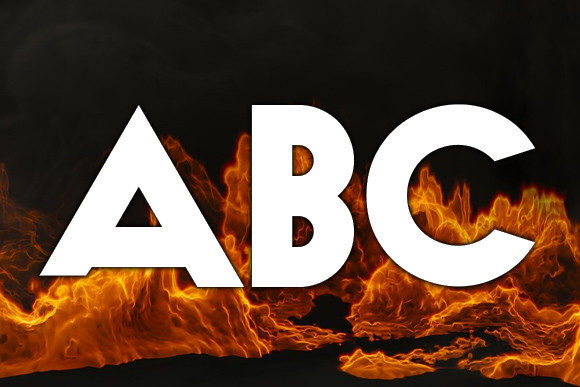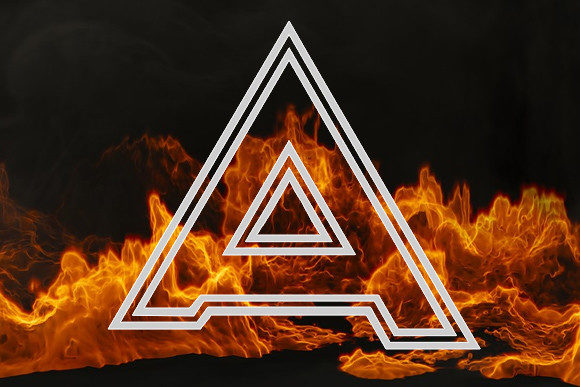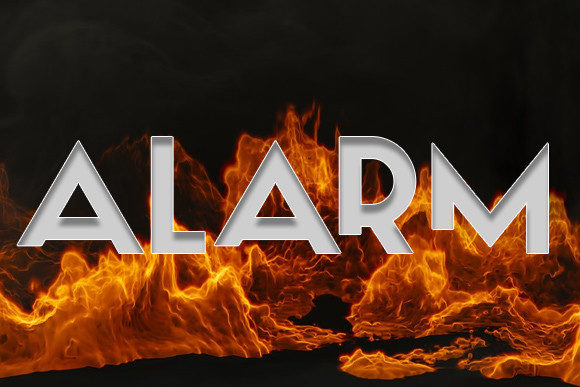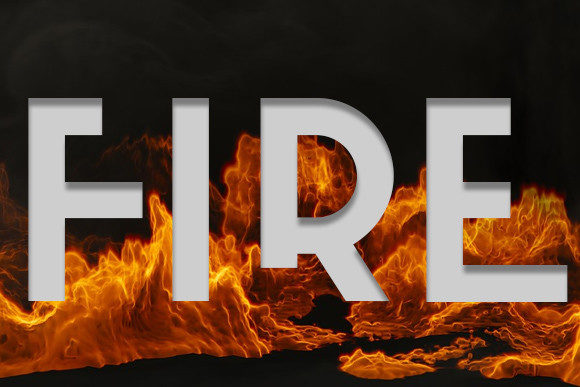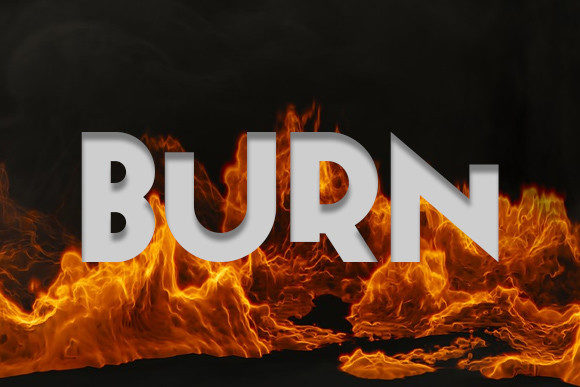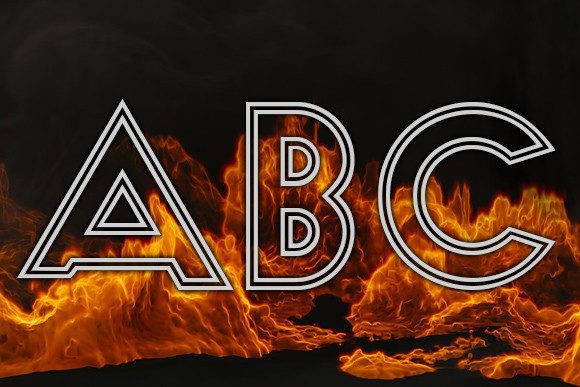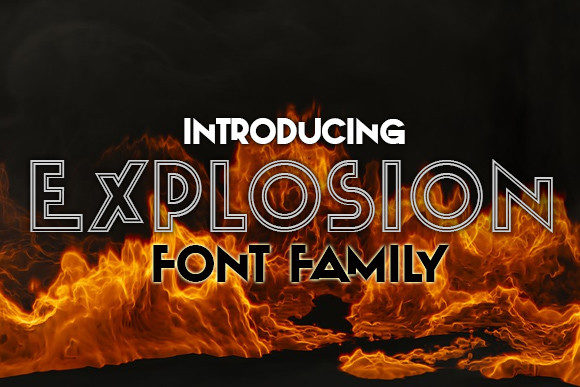
Unleash Your Creativity with Explosion Font: A Bold and Edgy Display Font
Are you tired of using the same old fonts for your designs? Do you want to add a touch of excitement and energy to your work? Look no further than Explosion Font, a cool, bold, and outlined display font that’s sure to inspire your creativity. With its unique and edgy design, Explosion Font is perfect for designers and crafters who want to take their work to the next level.
What is Explosion Font?
Explosion Font is a display font that’s designed to make a statement. Its bold and outlined design gives it a unique and edgy look that’s sure to grab attention. The font is perfect for use in a variety of design projects, from posters and flyers to logos and branding materials. Whether you’re a professional designer or a crafty DIY enthusiast, Explosion Font is a great addition to your font library.
Key Features of Explosion Font
- Bold and Edgy Design: Explosion Font features a bold and outlined design that’s sure to make your text stand out.
- High-Quality Vectors: The font is made up of high-quality vectors, ensuring that it looks great at any size.
- Endless Possibilities: With Explosion Font, the possibilities are endless. Use it for posters, flyers, logos, and more.
Why Use Explosion Font?
There are many reasons to use Explosion Font in your designs. Here are just a few:
- Add a Touch of Excitement: Explosion Font adds a touch of excitement and energy to your designs, making them more engaging and attention-grabbing.
- Stand Out from the Crowd: With its unique and edgy design, Explosion Font helps your designs stand out from the crowd.
- Perfect for Bold Statements: Explosion Font is perfect for making bold statements and adding emphasis to your text.
- Great for Logos and Branding: The font is also great for use in logos and branding materials, helping to create a bold and memorable brand identity.
Tips and Tricks for Using Explosion Font
Here are a few tips and tricks for getting the most out of Explosion Font:
- Use it Sparingly: Explosion Font is bold and attention-grabbing, so use it sparingly to avoid overwhelming your design.
- Experiment with Colors: Experiment with different colors and gradients to add depth and interest to your design.
- Combine with Other Fonts: Combine Explosion Font with other fonts to create a unique and interesting contrast.
- Have Fun: Most importantly, have fun and be creative with Explosion Font!
Explosion Font is a cool, bold, and outlined display font that’s perfect for designers and crafters who want to add a touch of excitement and energy to their work. With its unique and edgy design, high-quality vectors, and endless possibilities, Explosion Font is a great addition to any font library. So why wait? Download Explosion Font today and start unleashing your creativity!